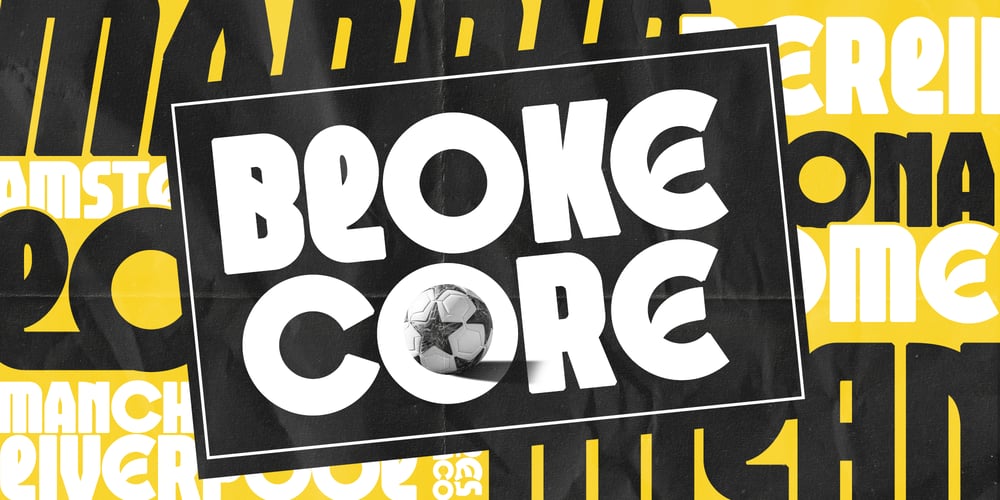
Blokecore Font Family was designed by Muhammad Afif Ersya and published by Mevstory Studio. Blokecore contains 2 styles and family package options. Introducing Bloke Core is Inspired by the style of design that is currently popular, and this is the answer to all the needs of every idea that you will pour in this modern era, with a thick and solid style in each letter as if this font has a soul in it.Its weight is superior in posters, social media, headlines, titles, large format print – and wherever you want to be noticed.We highly recommend using a program that supports OpenType features and Glyphs panels like many of Adobe apps and Corel Draw, so you can see and access all Glyph variations.